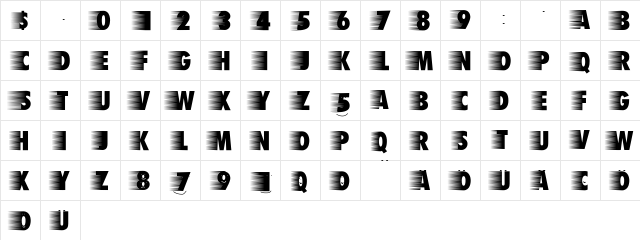
BreezeStarboards Regular Font Preview
BreezeStarboards Regular
BreezeStarboards Regular Font Details
Design Context for BreezeStarboards Typeface
BreezeStarboards is a composed and adaptable typeface that performs quietly and consistently across a wide range of design contexts.